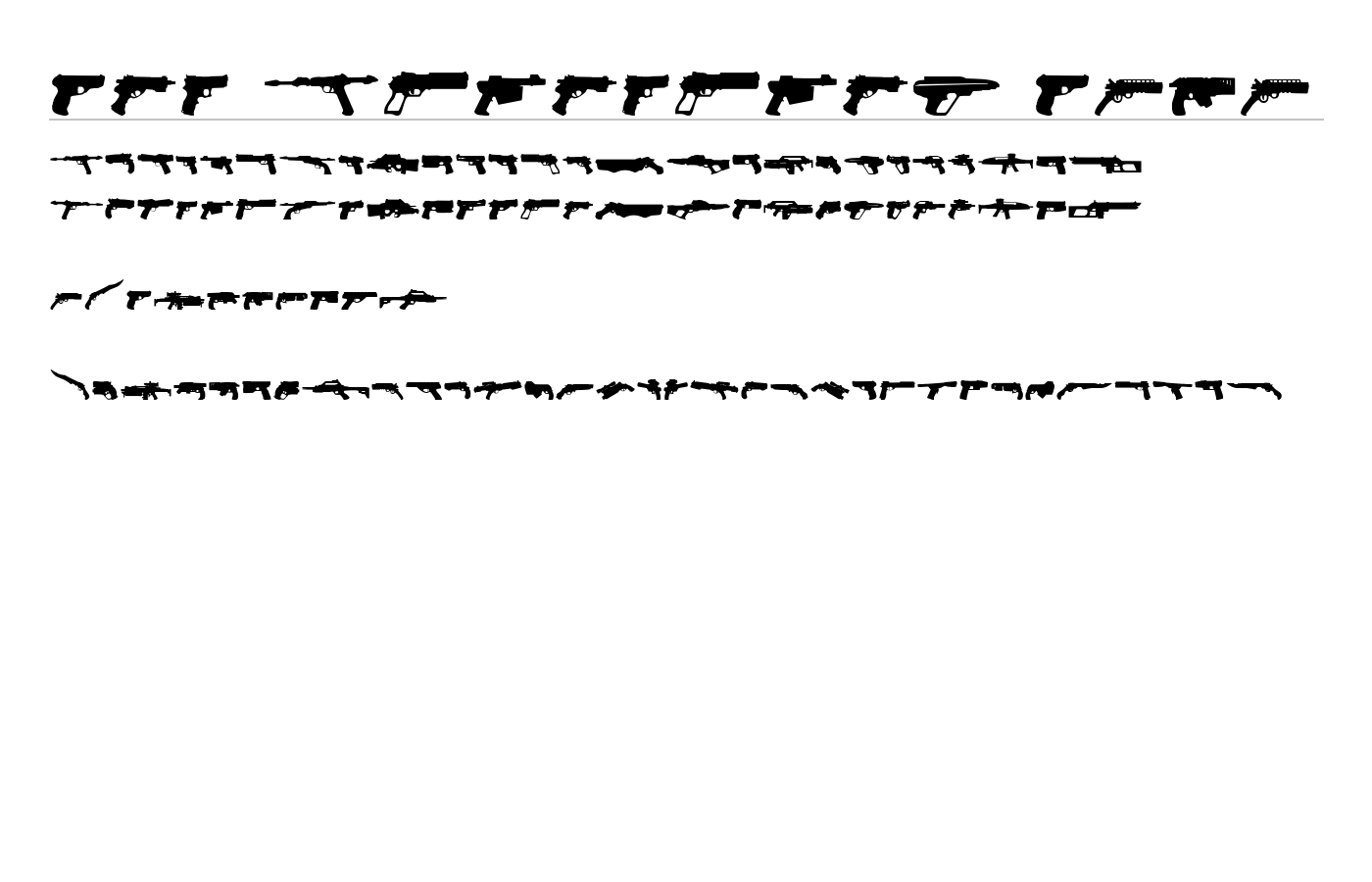
The 2nd Amendment 2050 font is a bold and highly stylized pictogram font composed entirely of black silhouettes of various firearms. Its uniform weight and solid shapes create a strong visual impact, making it best suited for thematic, edgy, or provocative design projects such as posters, video games, or editorial headlines related to weaponry or futurism. This font is not suited for body text but works well as a striking display element where a powerful and confrontational tone is desired.
2nd Amendment 2050 Font
About 2nd Amendment 2050 Font
| Font family | 2nd Amendment 2050 Font |